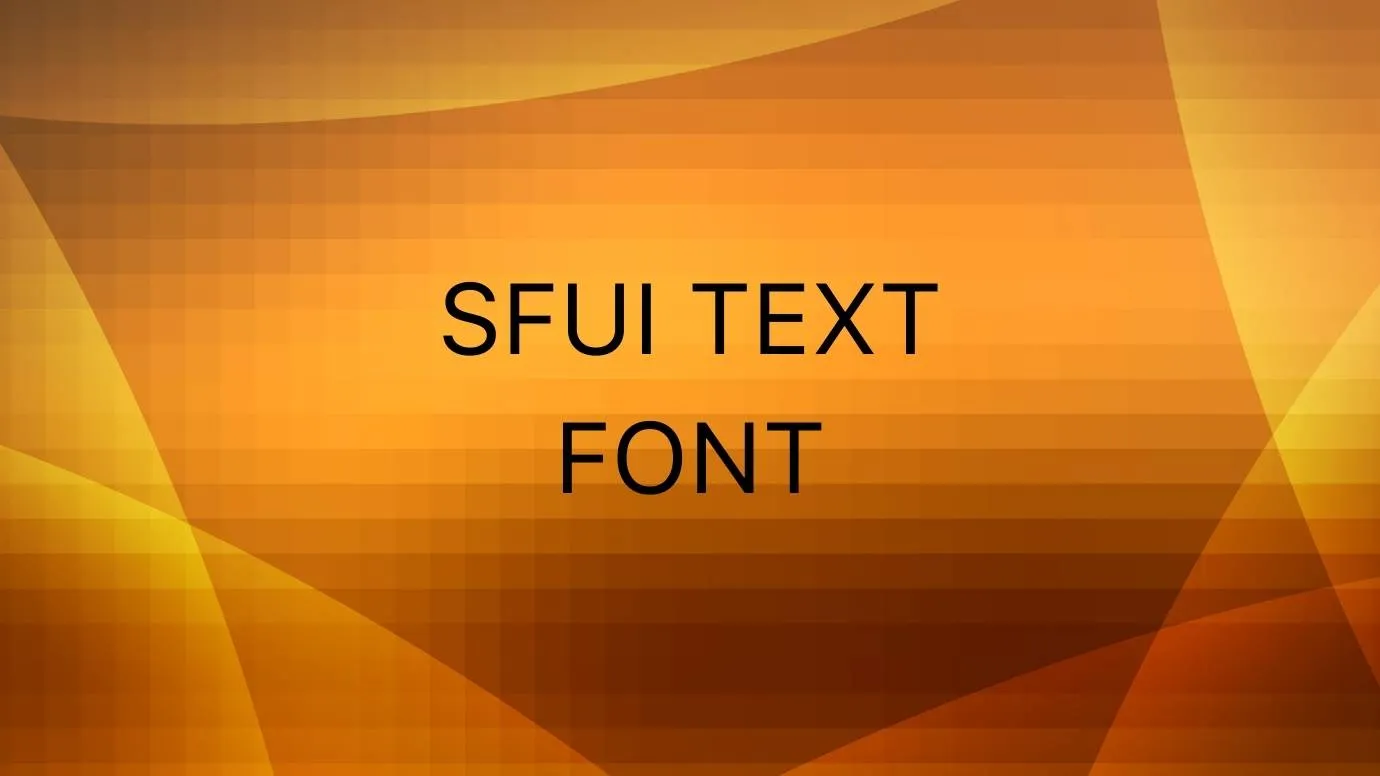
SF UI Text Font Family consists of 12 styles and 6 weights including regular, italic, bold, light, medium, and heavy, each weight has many futuristic alternates. Due to its multiple features, it is the most well-known font for its characters.
However, this typeface has OpenType and TrueType features that is provide 8 various patterns like Usual, Gentle, Daring, Black plus Italic. All these features and ligatures make it a perfect font for all display textual content.
SF UI Text Font Family
NameSF UI Text Font
DesignerApple Incorporation
StyleSans serif
Date Released2015